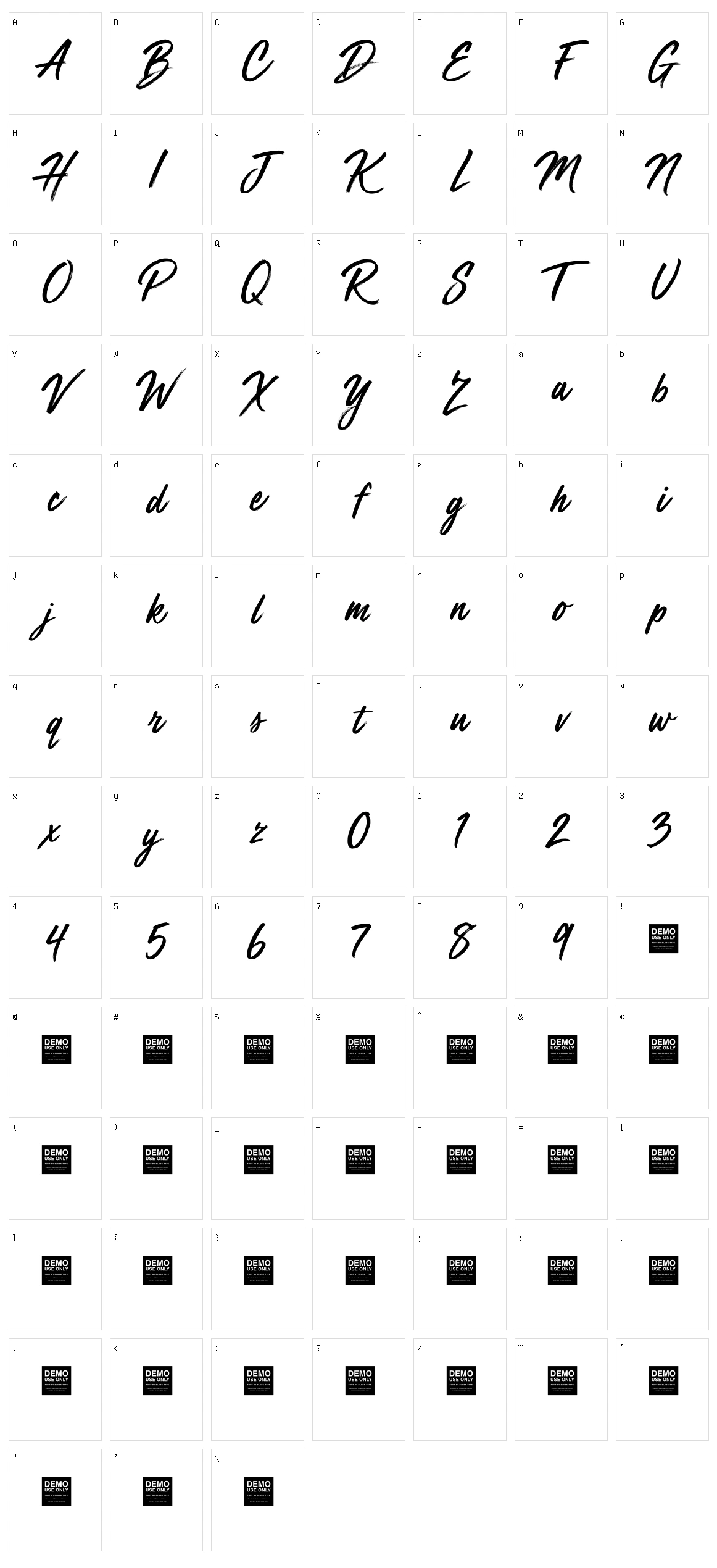
The free font Mega Fresh is carefully designed by BLKBK Fonts, showcasing a thoughtful balance of creativity and usability and falls under the Script font style. When you download the ZIP file, it contains only 109.86 KB of font files, making it lightweight and quick to download. Please review the license details below to understand permitted usage and distribution rights. If license information is not available, we recommend using this font for personal projects only or contacting the author directly for commercial usage permissions.